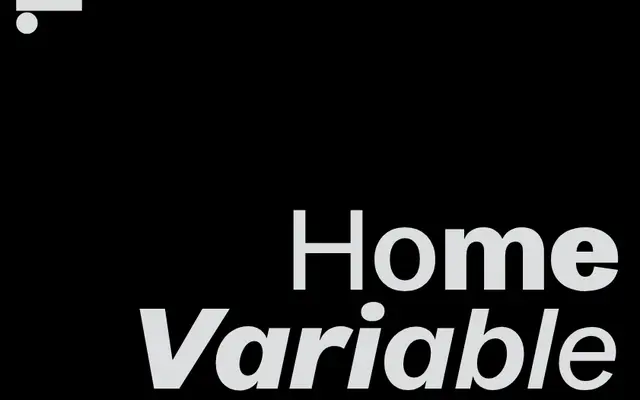
LL Home Var
A revival of Spartan Classified — Linotype's distorted 1951 hot-metal derivative of Futura — redeveloped by Clemens Piontek into an eight-style family with an eccentric but highly functional charm.
Originally pressed into service for the Skulptur Münster 2017 identity by graphic designers Lex Trüb and Urs Lehni, LL Home draws on Spartan Classified's paradoxical proportions: letters individually condensed, shortened or given arbitrary terminals to survive 5.5pt newspaper printing, which at larger scales become oddly appealing design features. Piontek redrew the shapes over several years, adding three weights plus italics to the original book cut, and the family is also available as a variable font. All-caps settings exploit the wide, stern uppercase while lowercase body text behaves with an entirely different rhythm, making the two registers feel almost like separate typefaces that nonetheless cohere.
Rooted in Futura's lineage via the Spartan Classified hot-metal variant, LL Home is a grotesque sans with eccentric proportions and terminals that defy pure geometric classification.